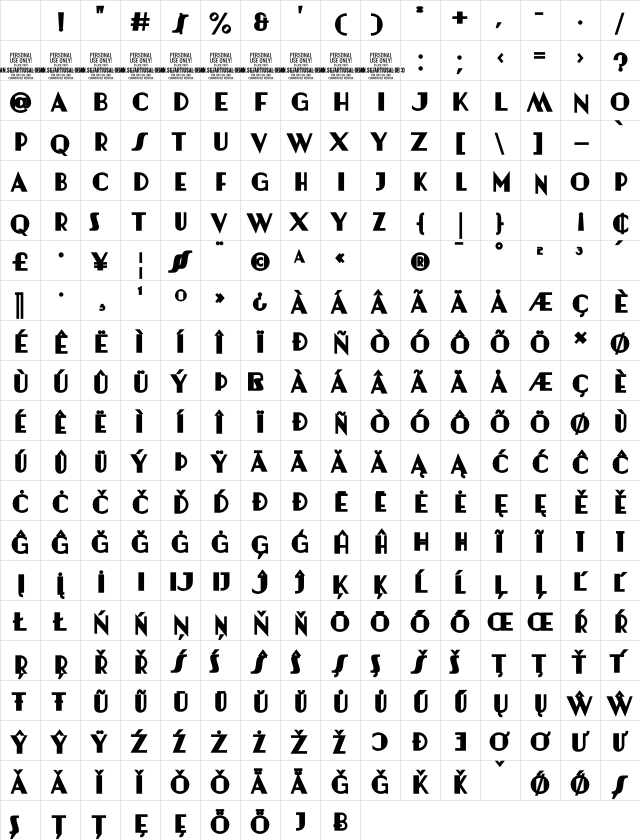
Artisual Deco Black PERSONAL USE ONLY Regular Free Font
Artisual Deco Black PERSONAL USE ONLY Regular
Designer: Mans Greback, Rizka Prayuda
Design Context for Artisual Deco Black PERSONAL USE ONLY PERSONAL USE ONLY
Artisual Deco Black PERSONAL USE ONLY is a composed and adaptable typeface that performs quietly and consistently across a wide range of design contexts.